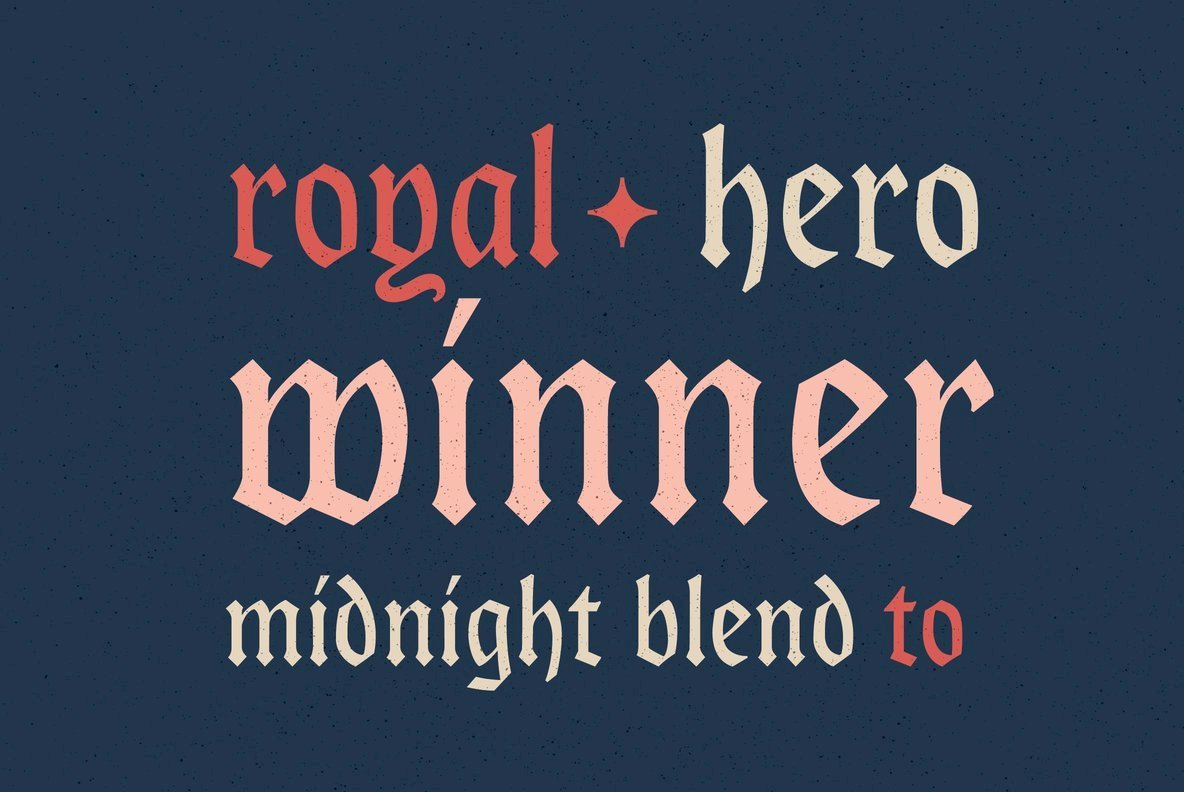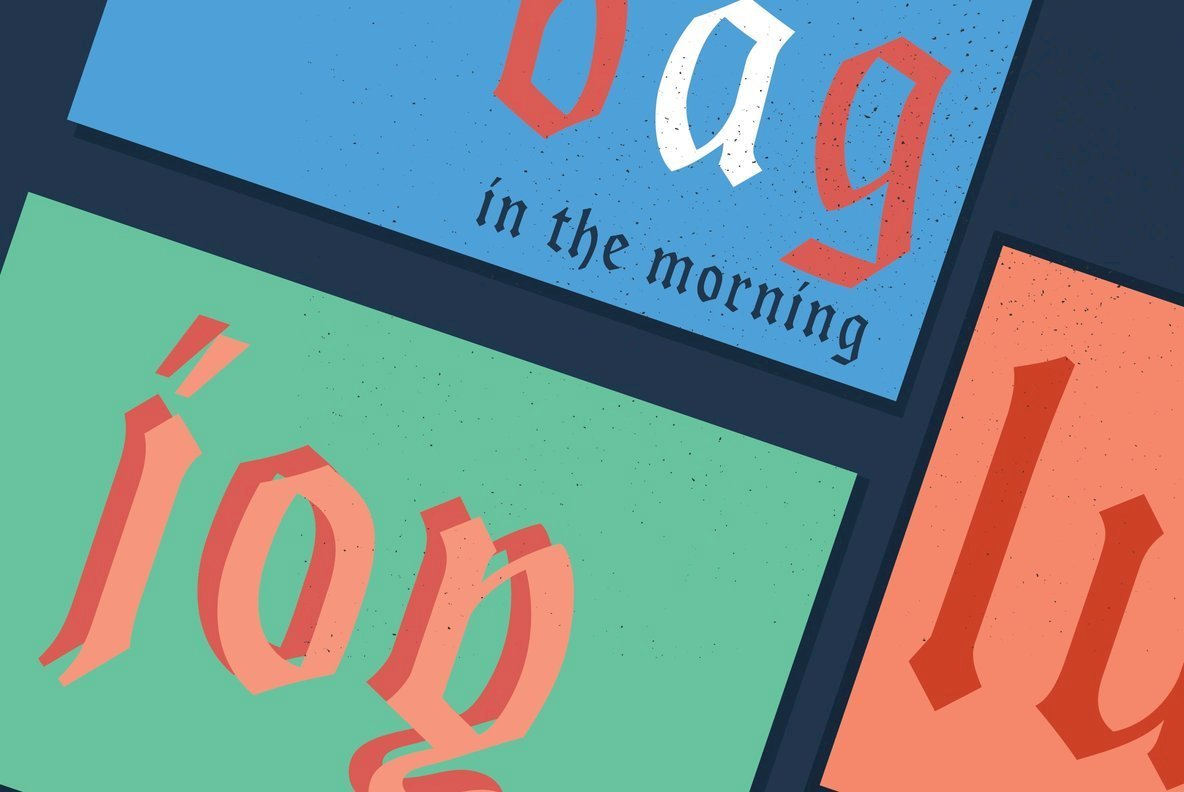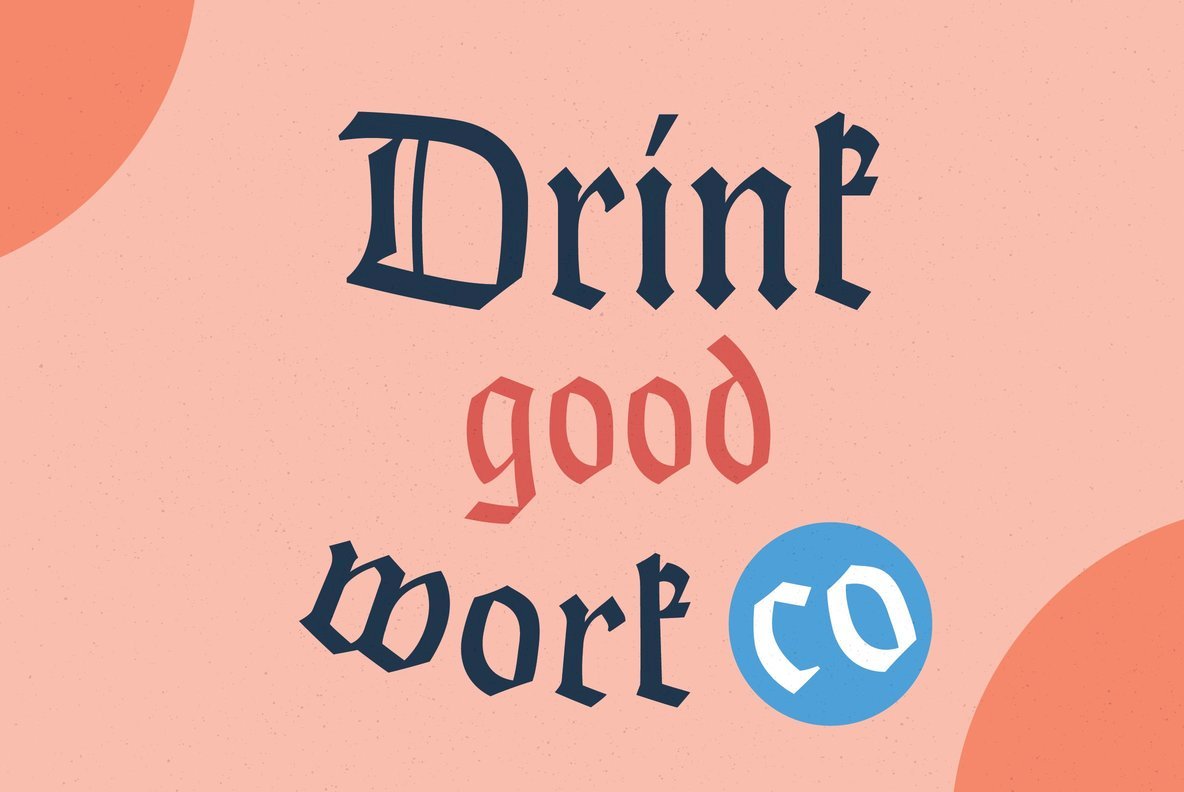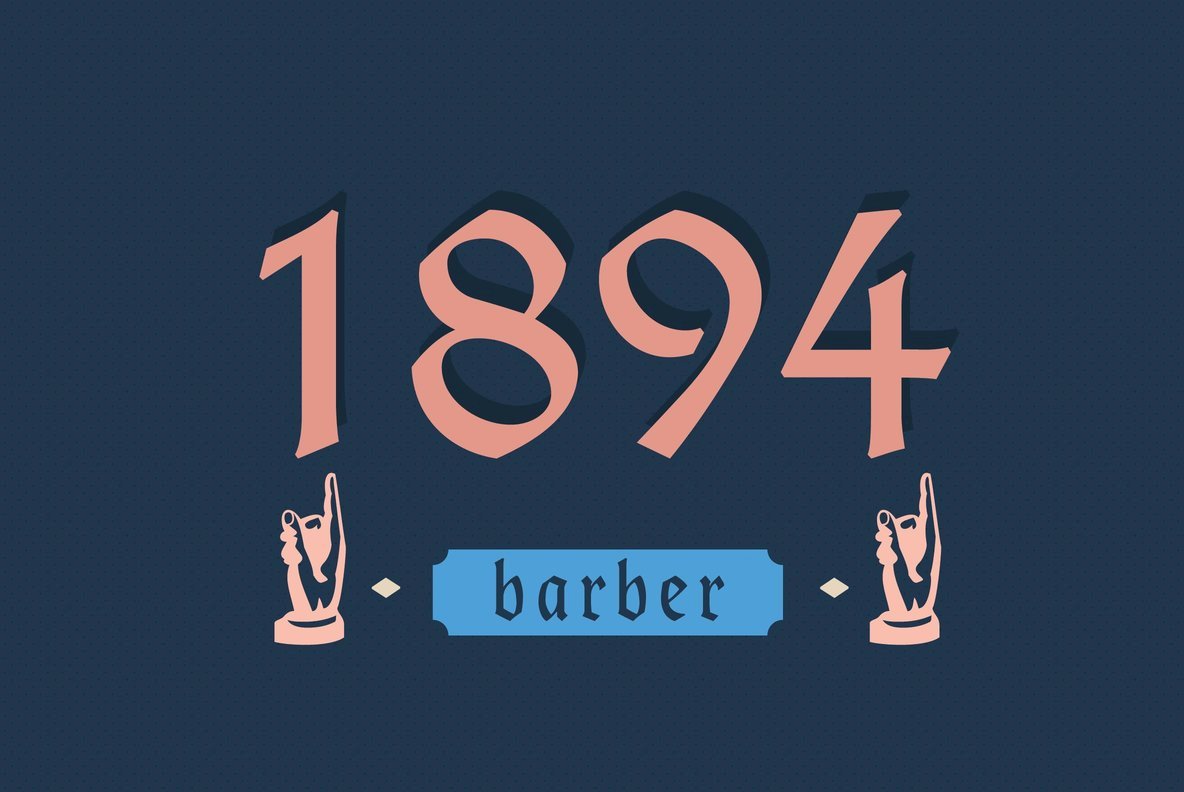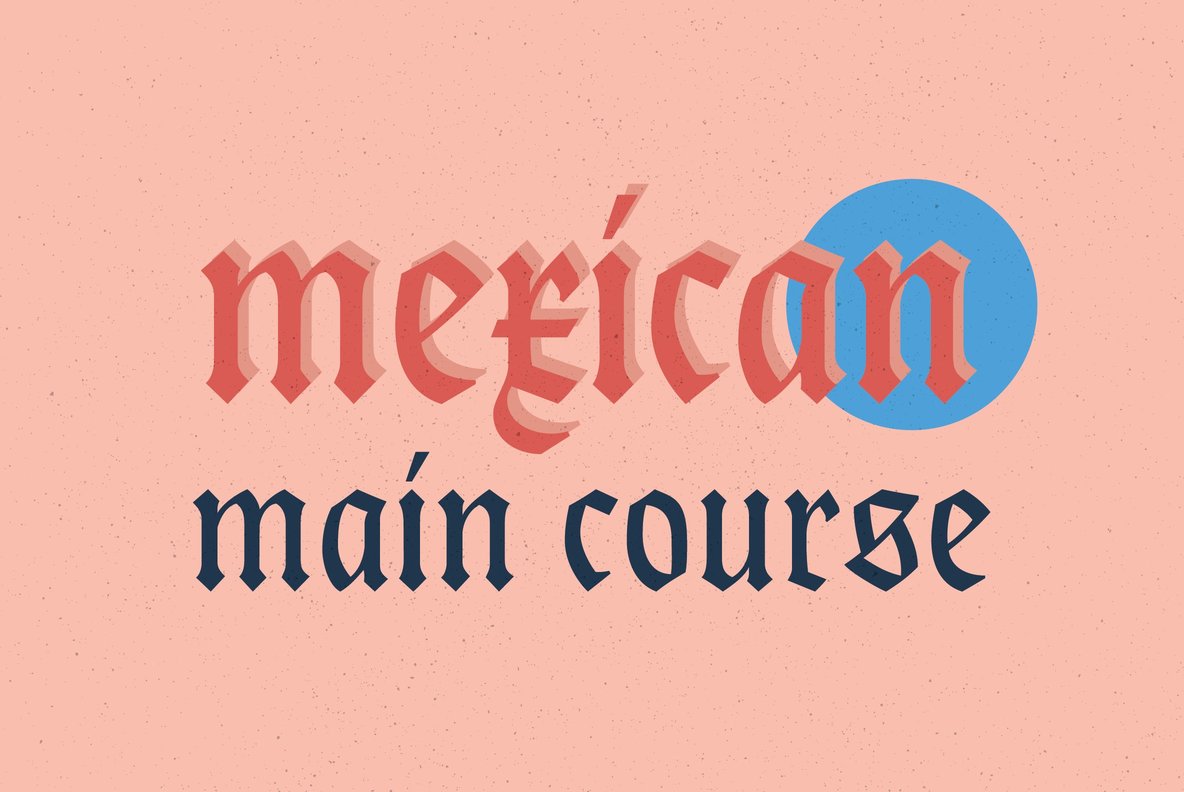
Hoelderlin Fraktur Font
Hoelderlin
In 1938 the Frankfurt-based foundry Ludwig & Mayer released Eugen Weiss’ beautiful fraktur ‚Hoelderlin‘. Carefully redrawn and redesigned, this digitized version is intended to add another gem to the enthusiasts’ treasure drove of blackletter types.
The font contains the historical long s which can be reached by the OpenType feature historical forms or by typing the summation sign [ ∫ ].